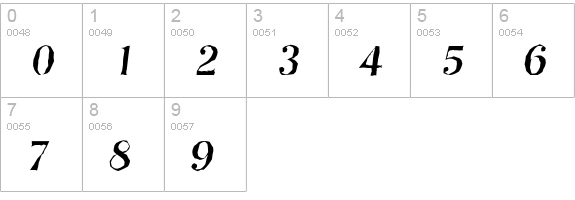
NashvilleAntique-Italic Font Details
NashvilleAntique-Italic is a distinctive, italic variant in the NashvilleAntique typeface family \xE2\x80\x94 well suited to design and typography projects.
NashvilleAntique-Italic font is a timeless and elegant typeface that exudes a sense of nostalgia and sophistication. Its delicate flourishes and classic lines make it a perfect choice for projects that require a touch of vintage charm. The italic style adds a refined and stylish flair to any design, whether it's for invitations, branding, or editorial content. The best part? NashvilleAntique-Italic font is available for free download at FontsMarket.com. You can add this exquisite font to your collection without any cost, making it a valuable asset for designers and creatives looking to elevate their work with a touch of old-world charm. Download NashvilleAntique-Italic font today and bring a touch of timeless elegance to your projects.